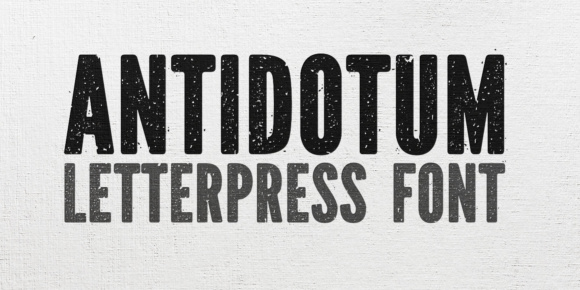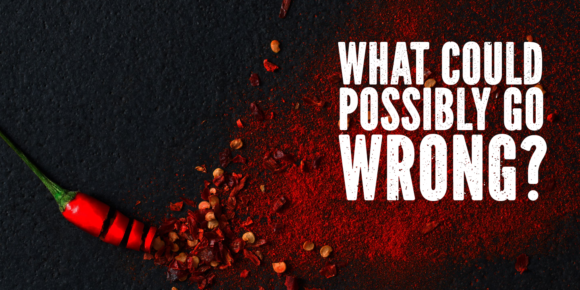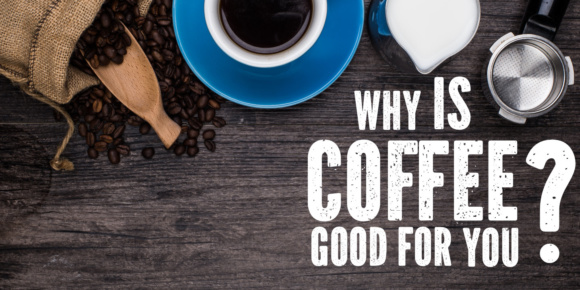
Antidotum Font: Bold Grunge Font for Impactful DIY Projects!
About the Antidotum Font
Meet Antidotum Font, a stunning font that brings a touch of elegance and professionalism to any design. Antidotum is a hand-made letterpress font with two different sets of capital letters. This is a really cool, grunge font that adds a ton of impact and grit to different project types.
Antidotum’s bold, rebellious personality makes it ideal for headlines, posters, and branding projects needing a strong, gritty aesthetic. It excels in short impactful statements, conveying a sense of raw energy and authenticity. However, its handcrafted nature and varying capital letter sets make it unsuitable for body text or UI elements requiring high legibility.
Pairing Antidotum effectively requires a complementary typeface to balance its roughness. A clean sans-serif like Open Sans or a geometric sans-serif such as Futura would provide strong contrast and improve readability in supporting text. For a more cohesive yet contrasting approach, a neutral serif like Garamond could work well.
The font’s grunge texture makes it particularly well-suited for brands targeting a rebellious or vintage-inspired market. Think independent music labels, craft breweries, or streetwear brands seeking a distinctive visual identity.
Antidotum Font Usage Examples
Antidotum Font Example